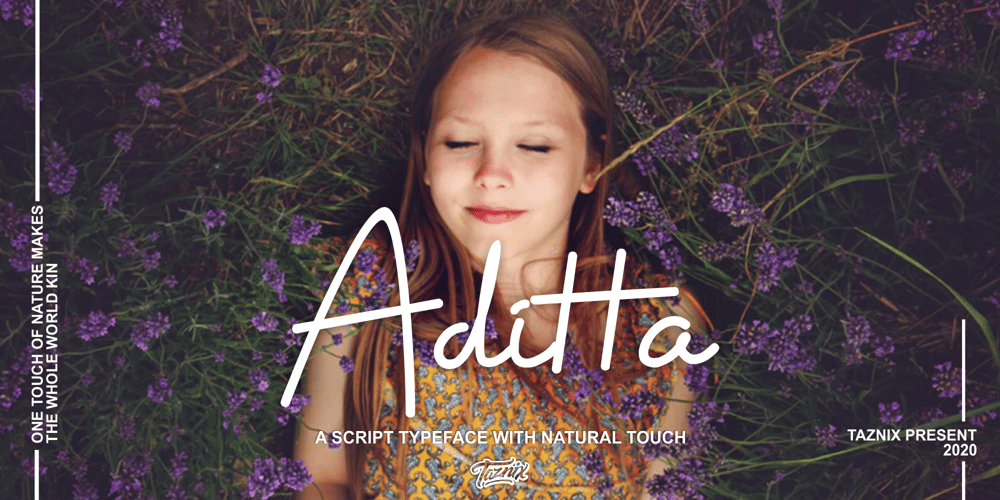
Aditta Font Family was designed by Ricky Hartasni and published by Taznix Creative. Aditta contains 1 styles and family package options. Aditta simplifies elegance into one truly outstanding handwritten font. It maintains its classy calligraphic influences while feeling contemporary and fresh. This versatility will appeal to a wide range of crafty ideas, from letterheads and titles, to stationery. Use this gorgeous and unique font to bring any DIY project to life!Aditta is perfect for branding projects, logo, wedding designs, social media posts, advertisements, product packaging, product designs, label, photography, watermark, invitation, stationery and any projects that need handwriting taste with Natural Touch.What’s Included : Standard glyphs Ligature Works on PC & Mac Simple installations Accessible in the Adobe Illustrator, Adobe Photoshop, Adobe InDesign, even work on Microsoft Word. PUA Encoded Characters – Fully accessible without additional design software. Fonts include multilingual support for; � � � � � � � � �